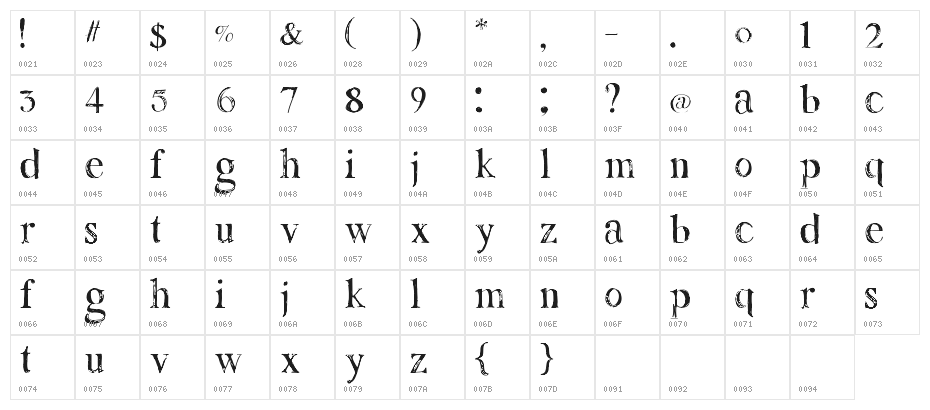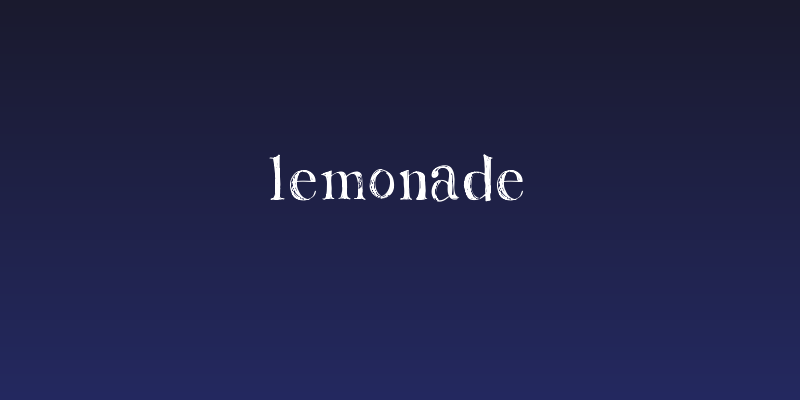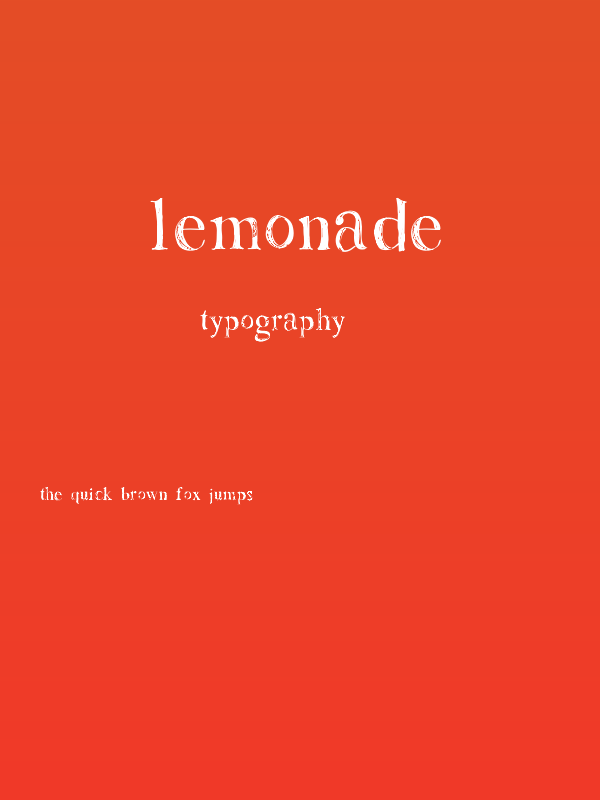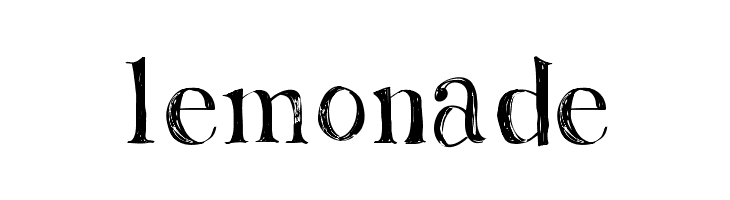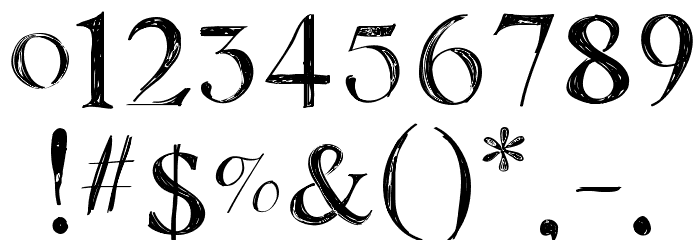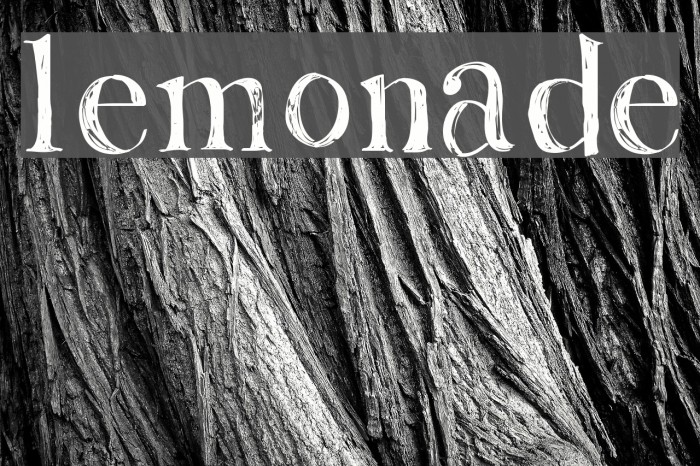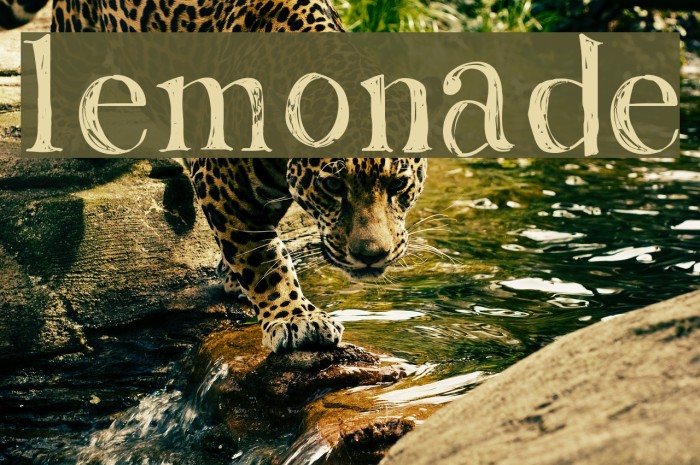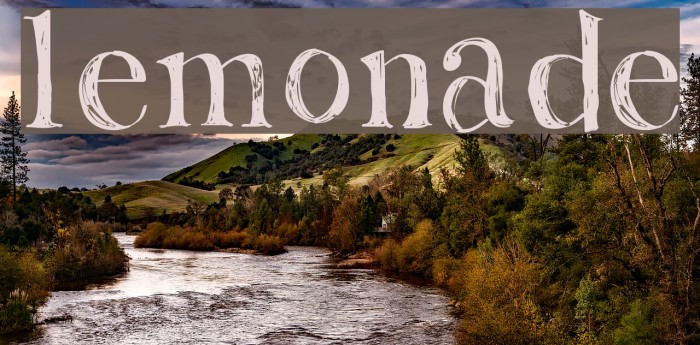
Lemonade Font
Lemonade Description
This font features a distressed and textured appearance, giving it a hand-drawn, artistic feel. The characters have irregular edges and varying stroke thicknesses, creating a dynamic and visually engaging style. The uppercase and lowercase letters maintain a consistent design, with a playful yet slightly gothic influence. Numbers and special characters follow the same aesthetic, making the font versatile for creative projects. The overall look is both vintage and modern, suitable for designs that require a unique and bold statement.
| Overall Style | Vintage, Modern |
| Proposed Projects | Ideal for posters, album covers, branding, and any project needing a bold, artistic touch. |